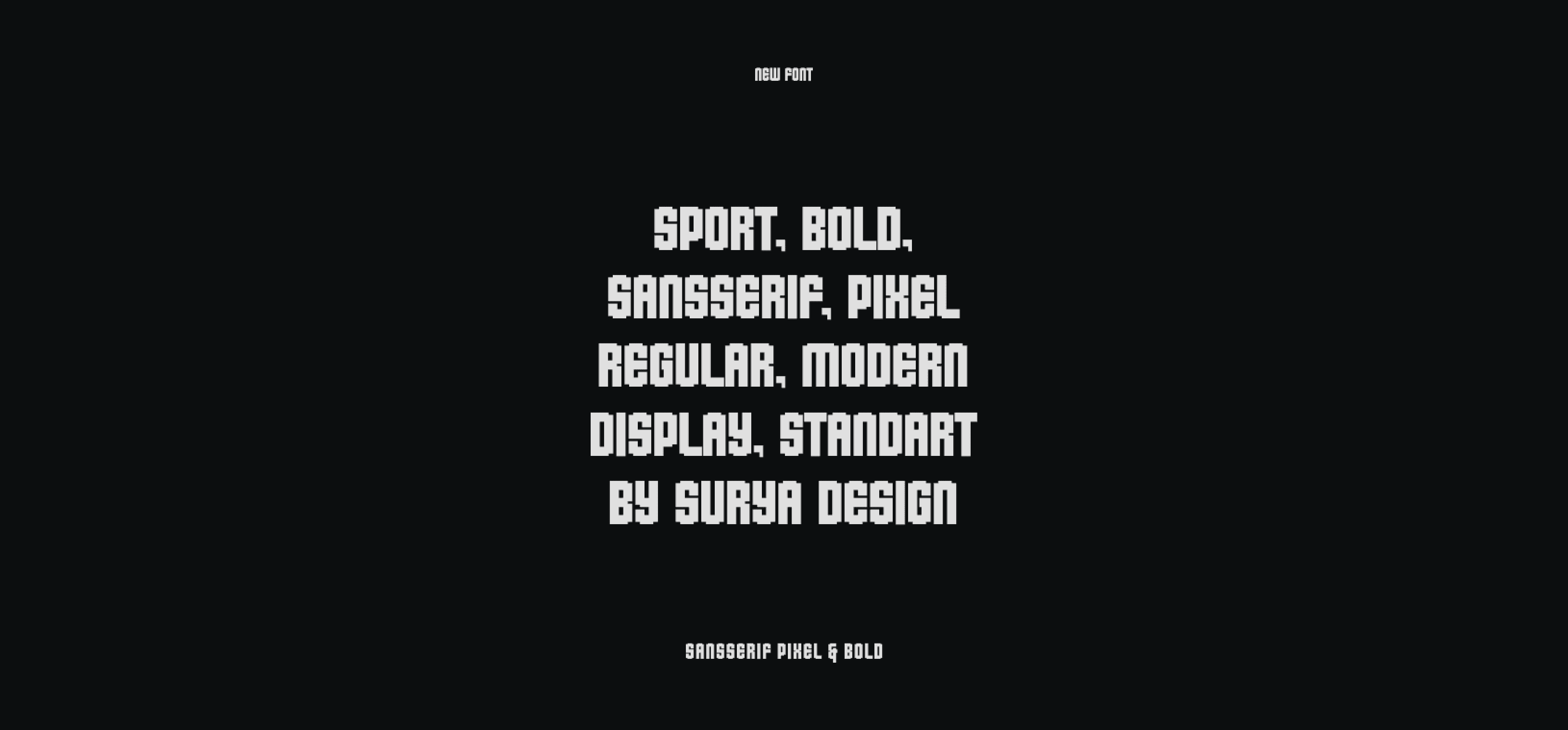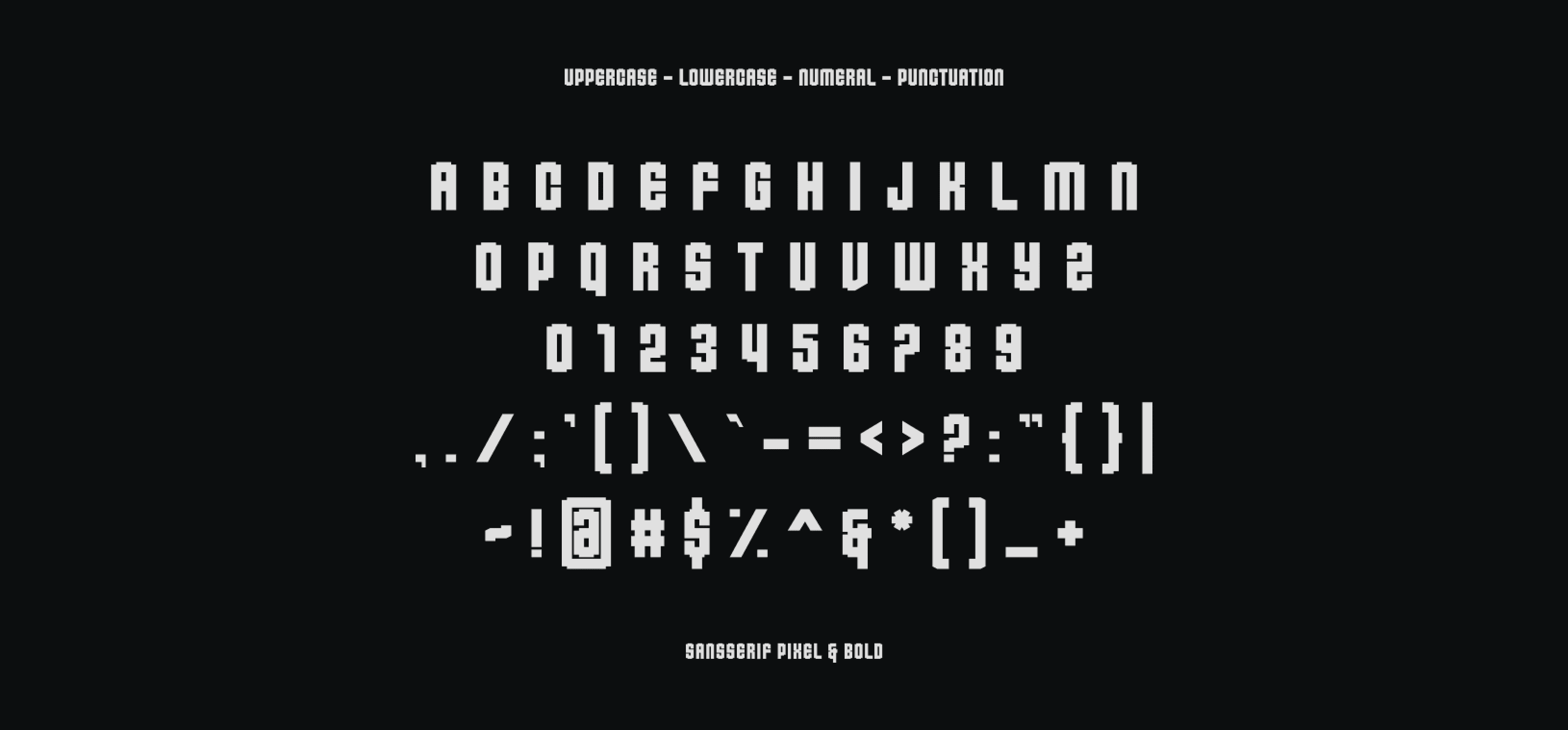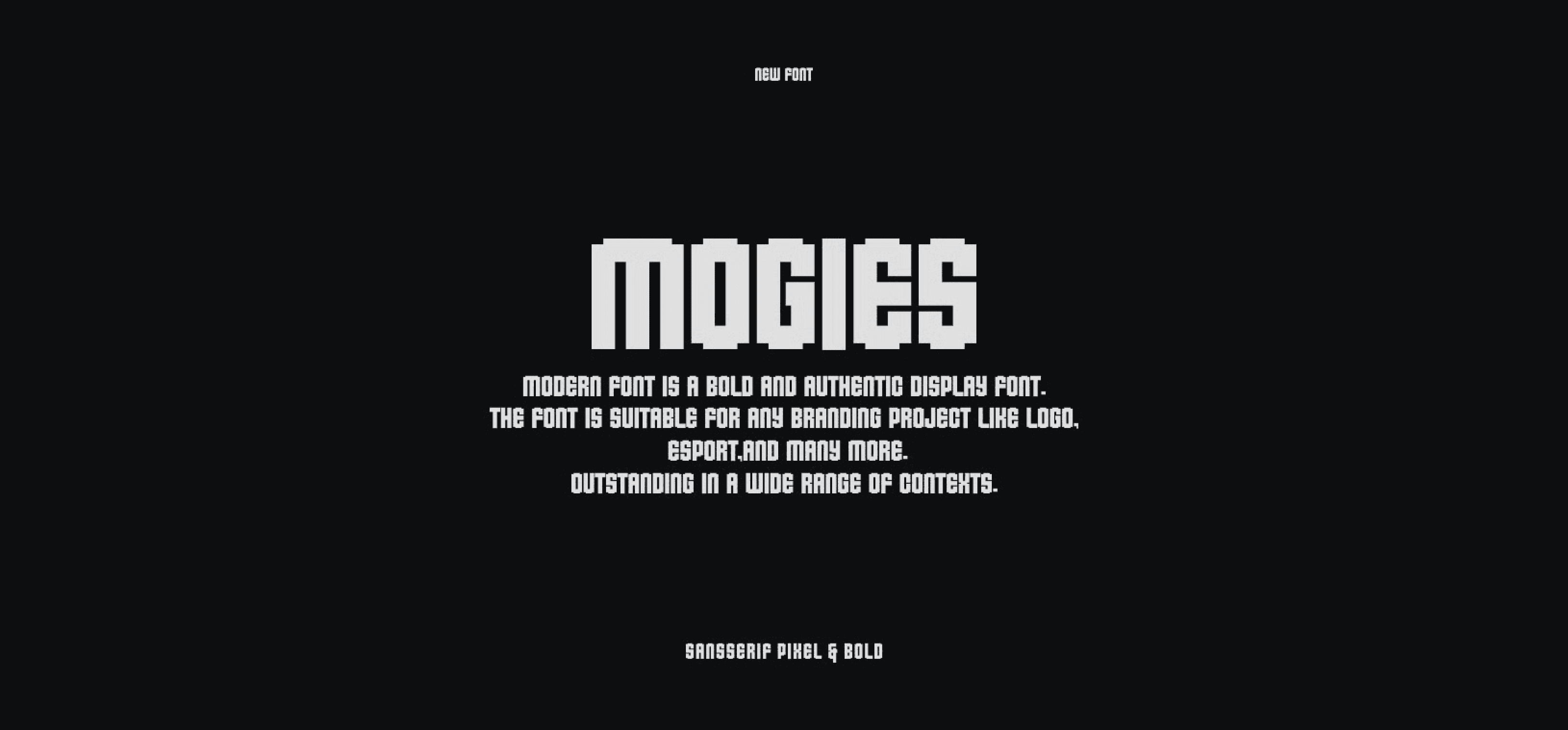
Introducing our new product Mogies Font - Modern Font
Mogies Font- Modern Font is a bold and authentic display font. The font is suitable for any branding project like logo, esport, and many more. outstanding in a wide range of contexts.